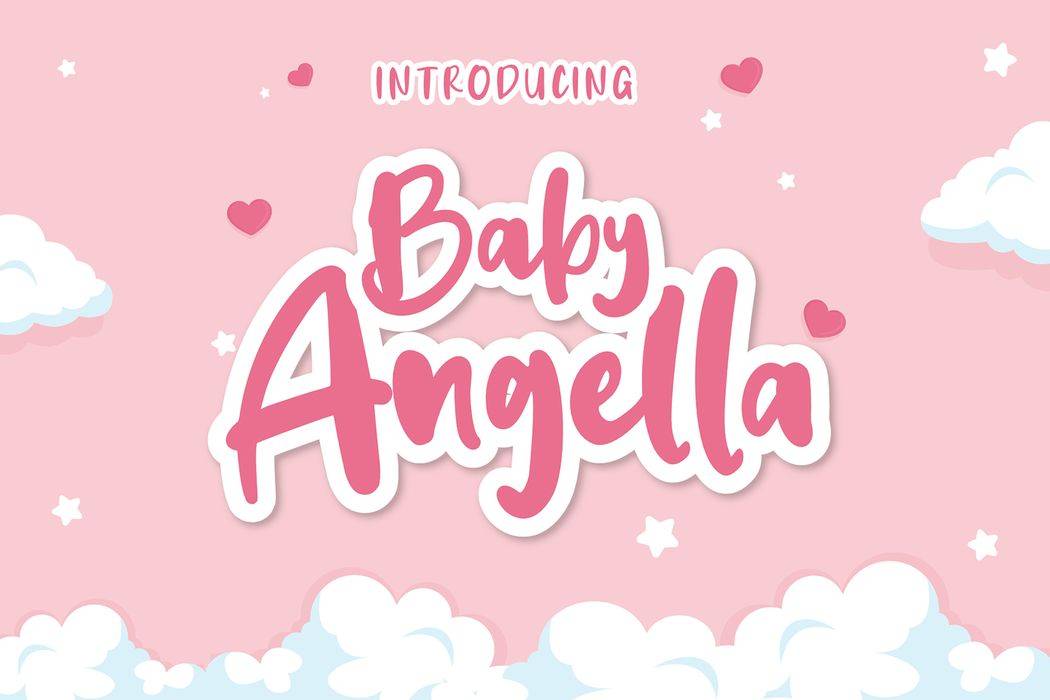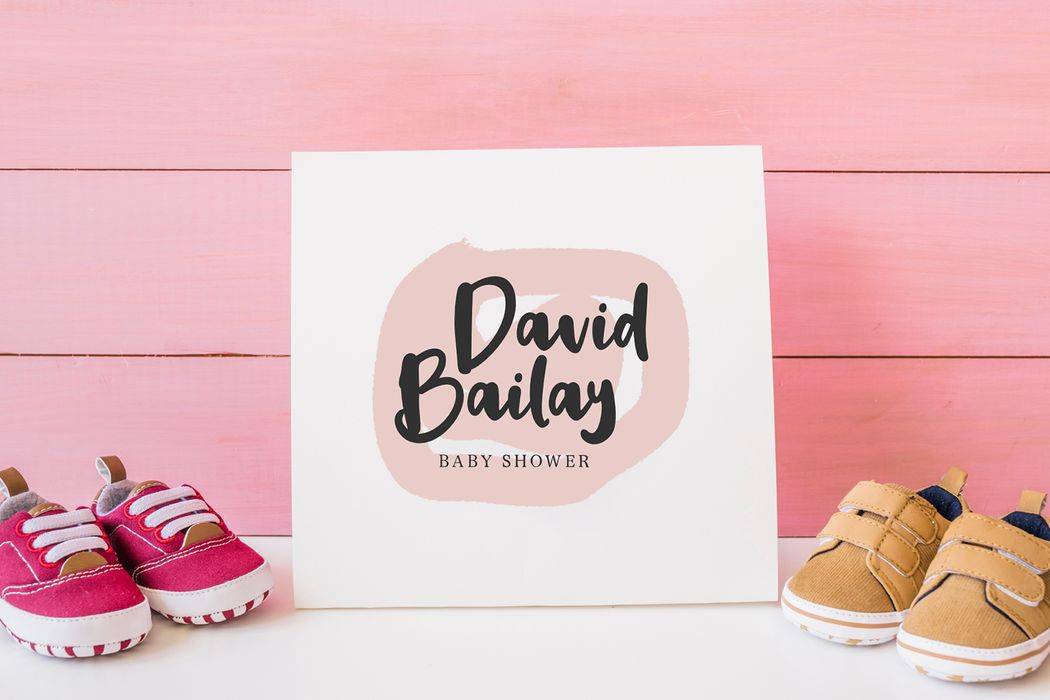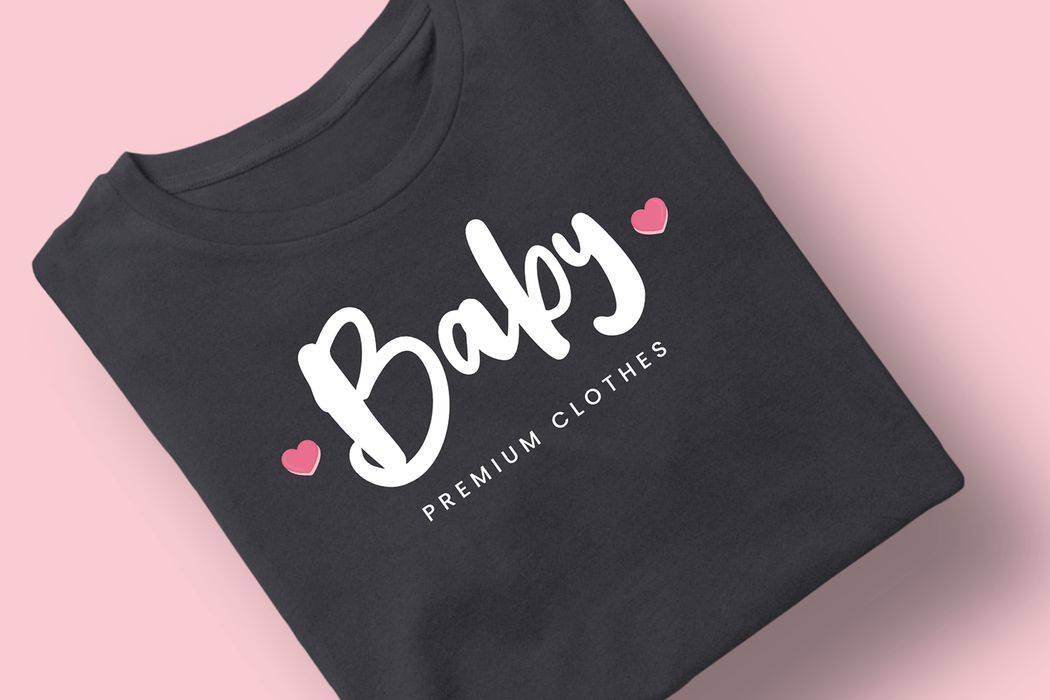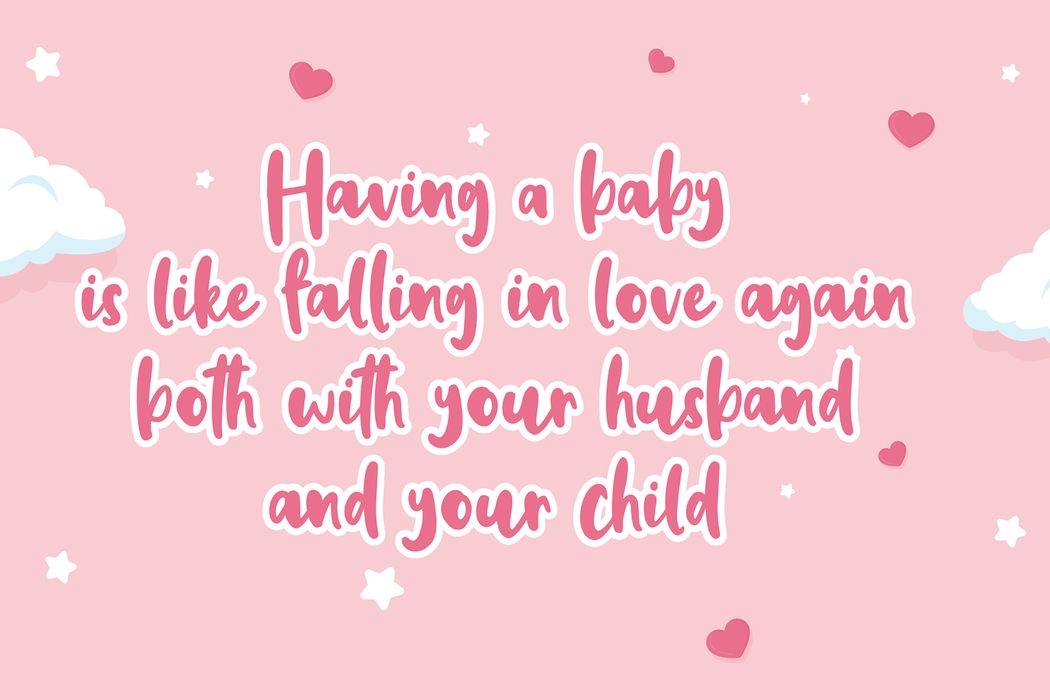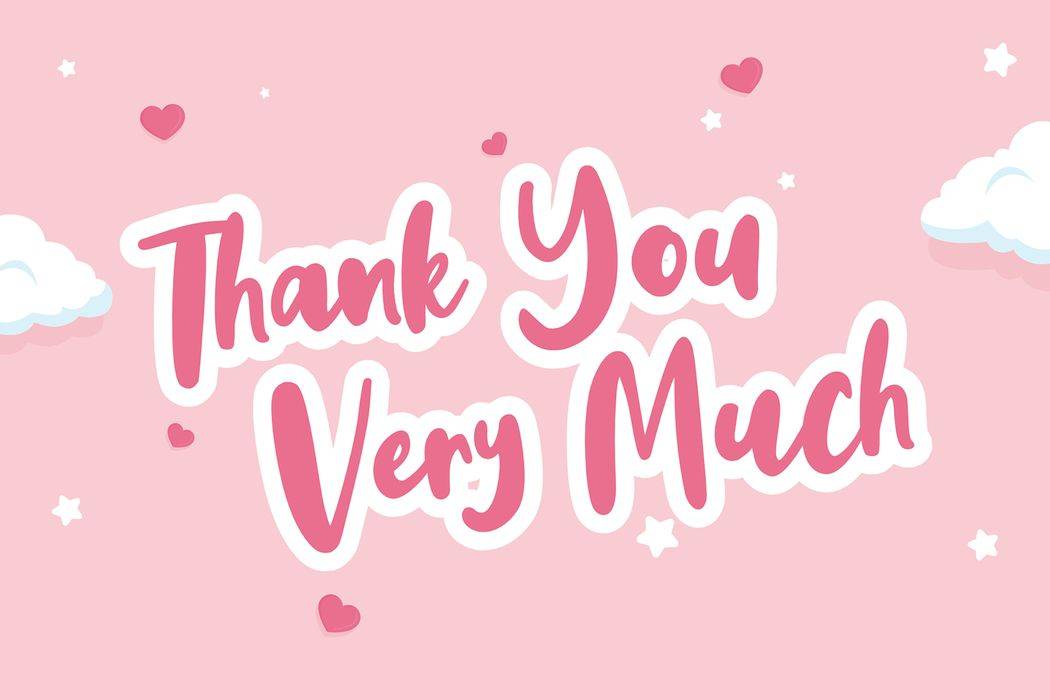
Baby Angella is a playful, handwritten script font with a casual and friendly vibe, featuring smooth, moderately bold strokes and a lively flow that mimics natural handwriting. Its rounded letterforms and moderate x-height make it highly readable while conveying warmth and creativity, making it ideal for personal branding, invitations, and informal designs where a charming and approachable feel is desired. This font works best in headlines, logos, and packaging where a hand-crafted, joyful touch enhances the overall mood.
Baby Angella Font
About Baby Angella Font
| Font family | Baby Angella Font |
| Designer | Hasna - Viola Type |